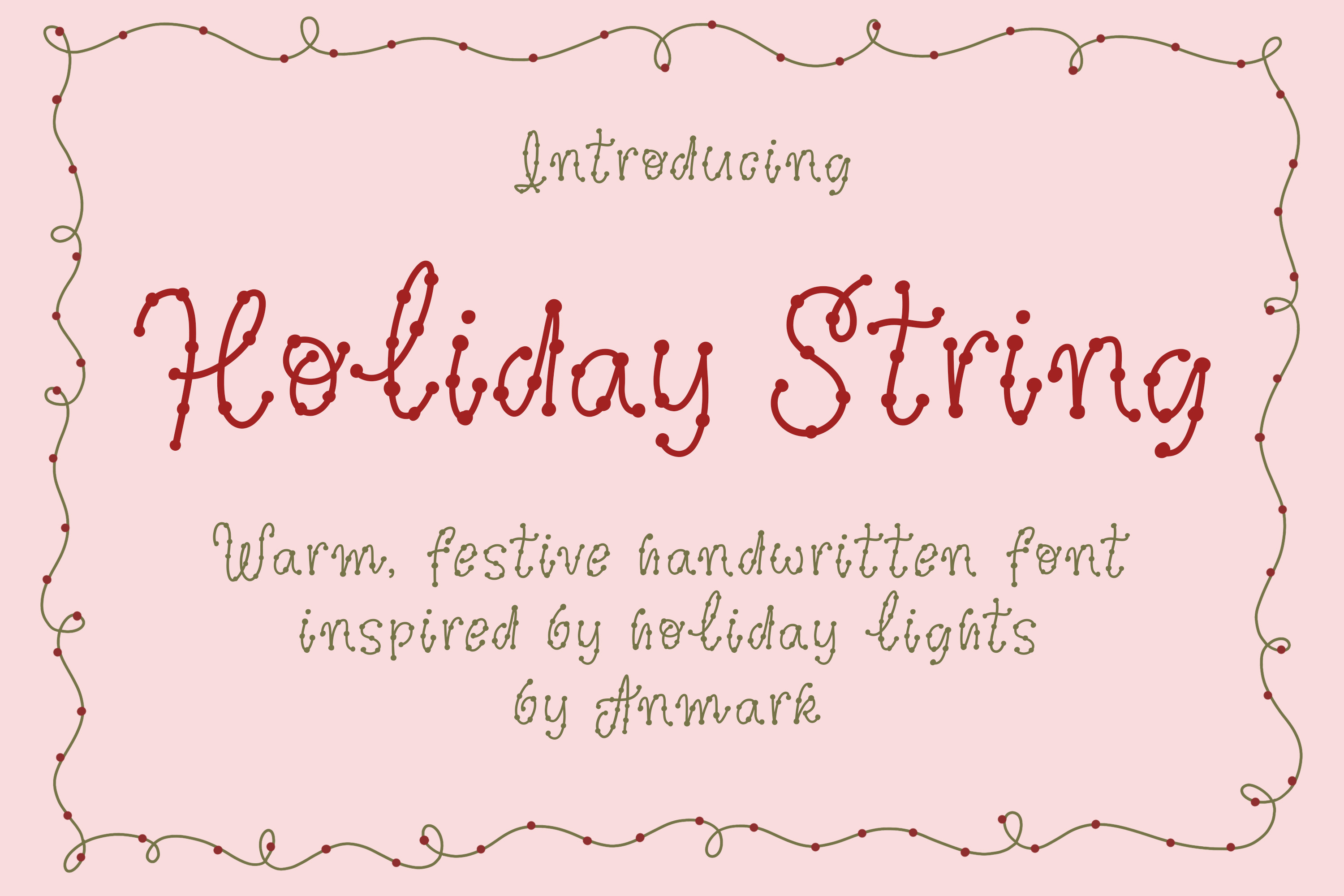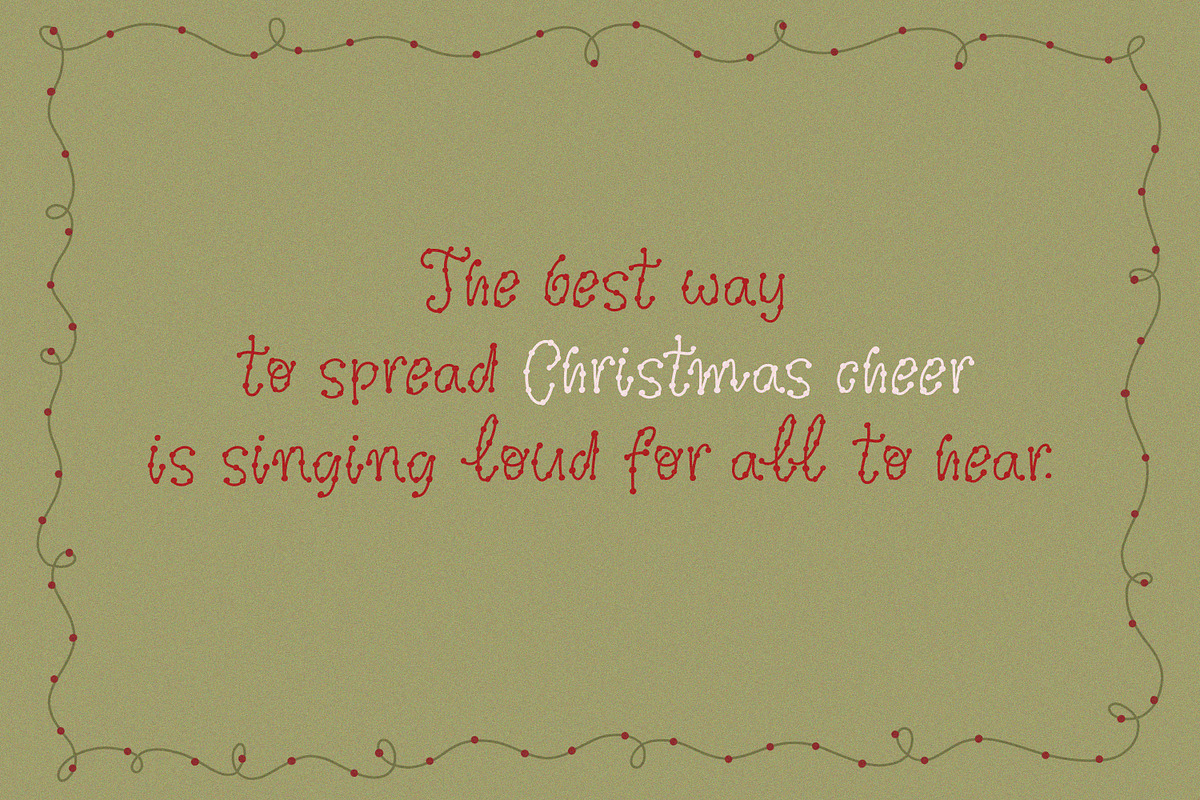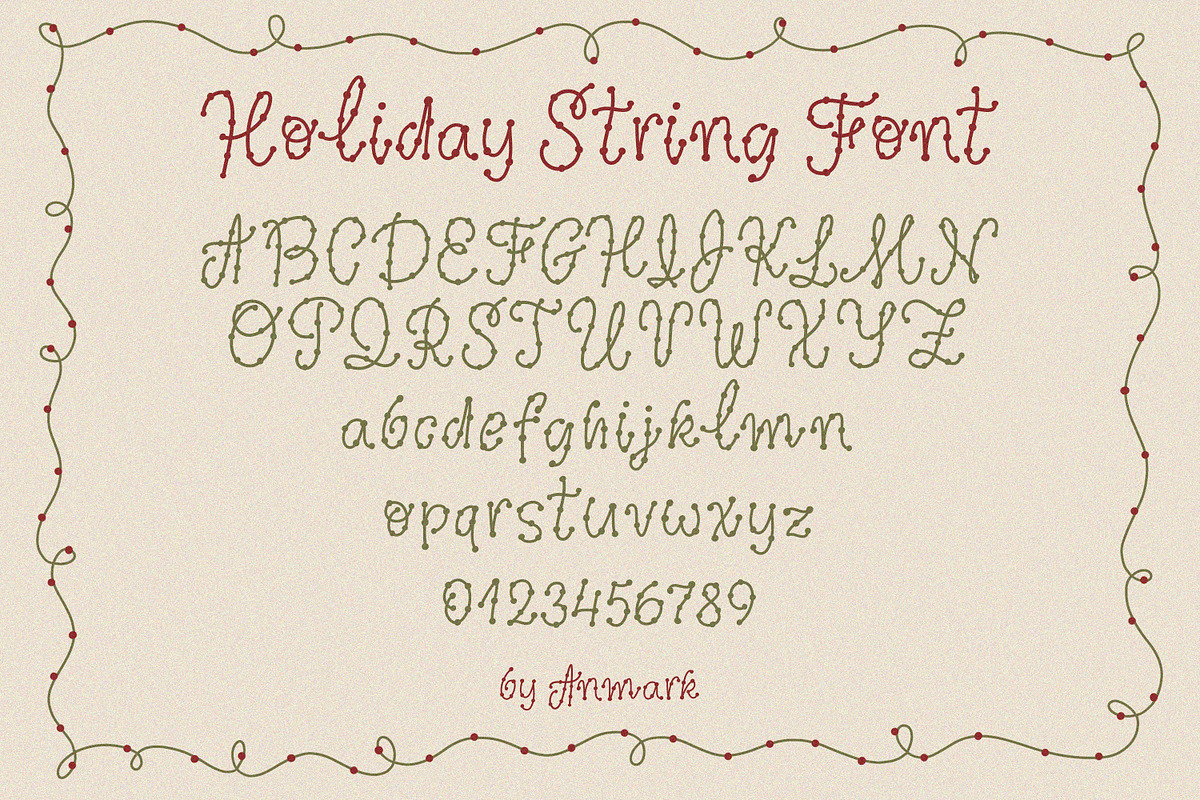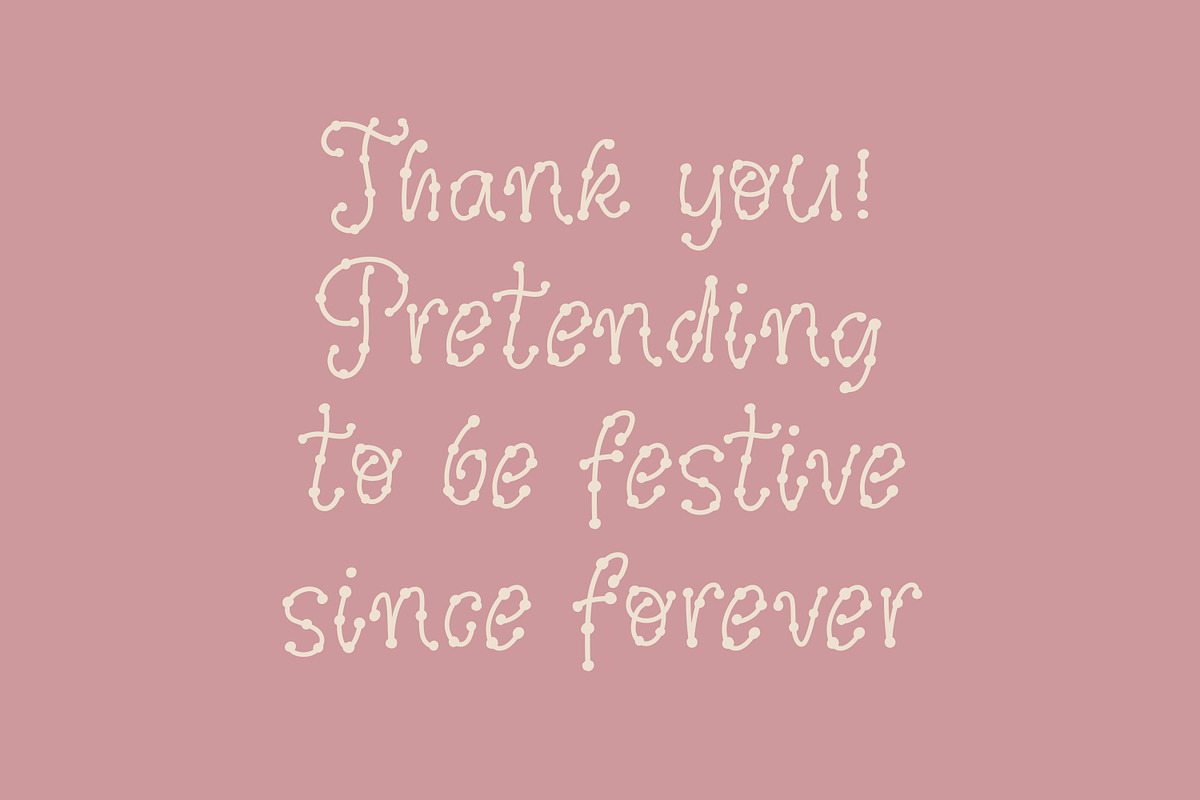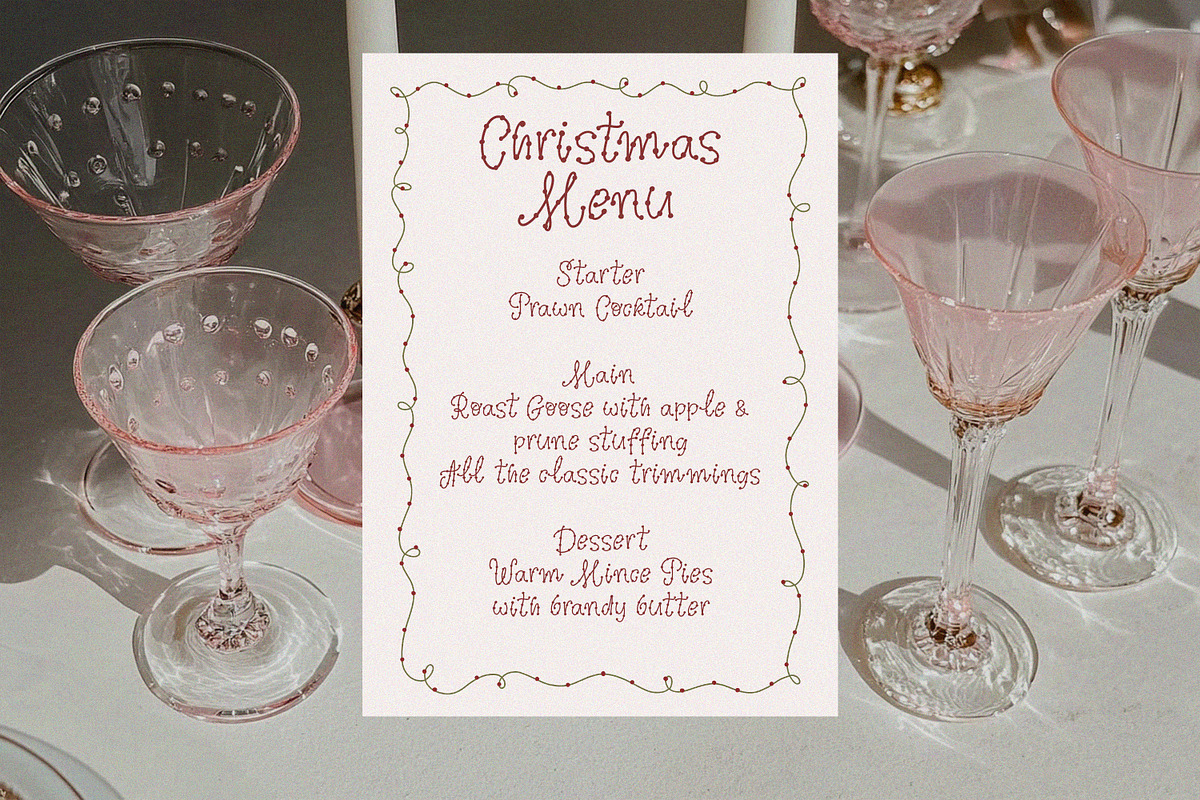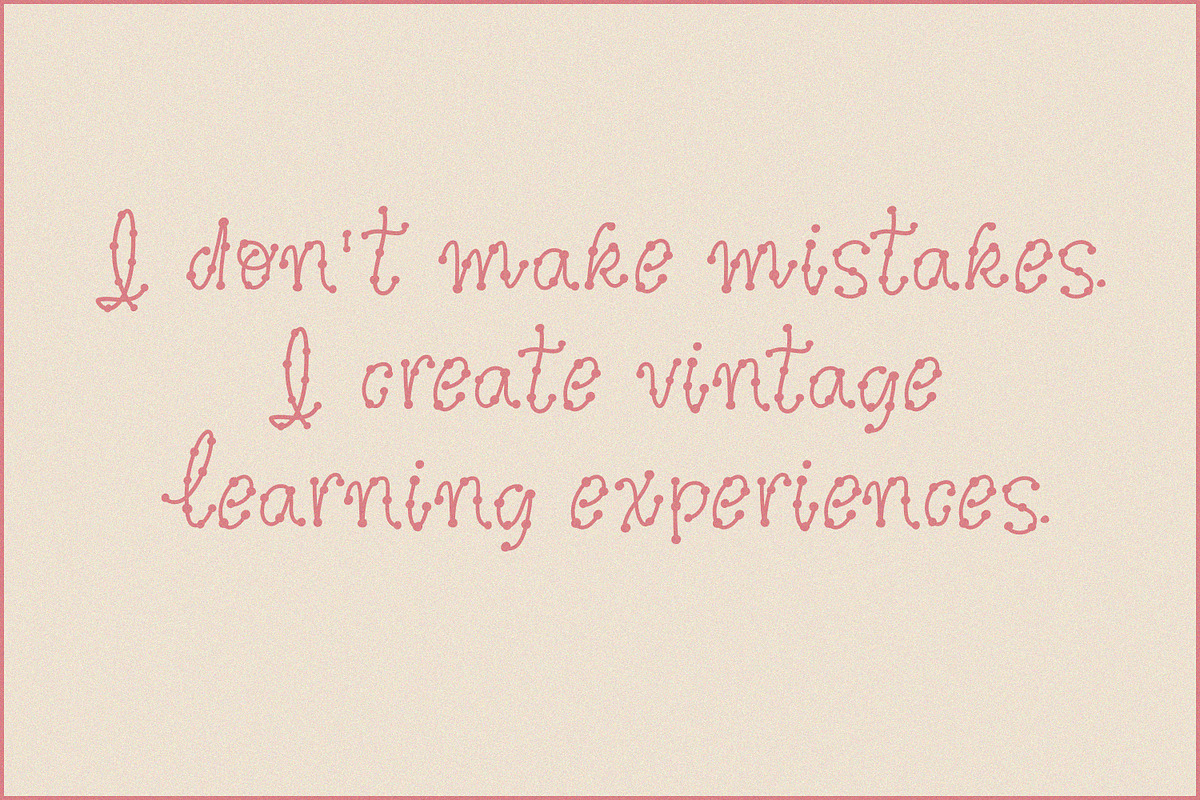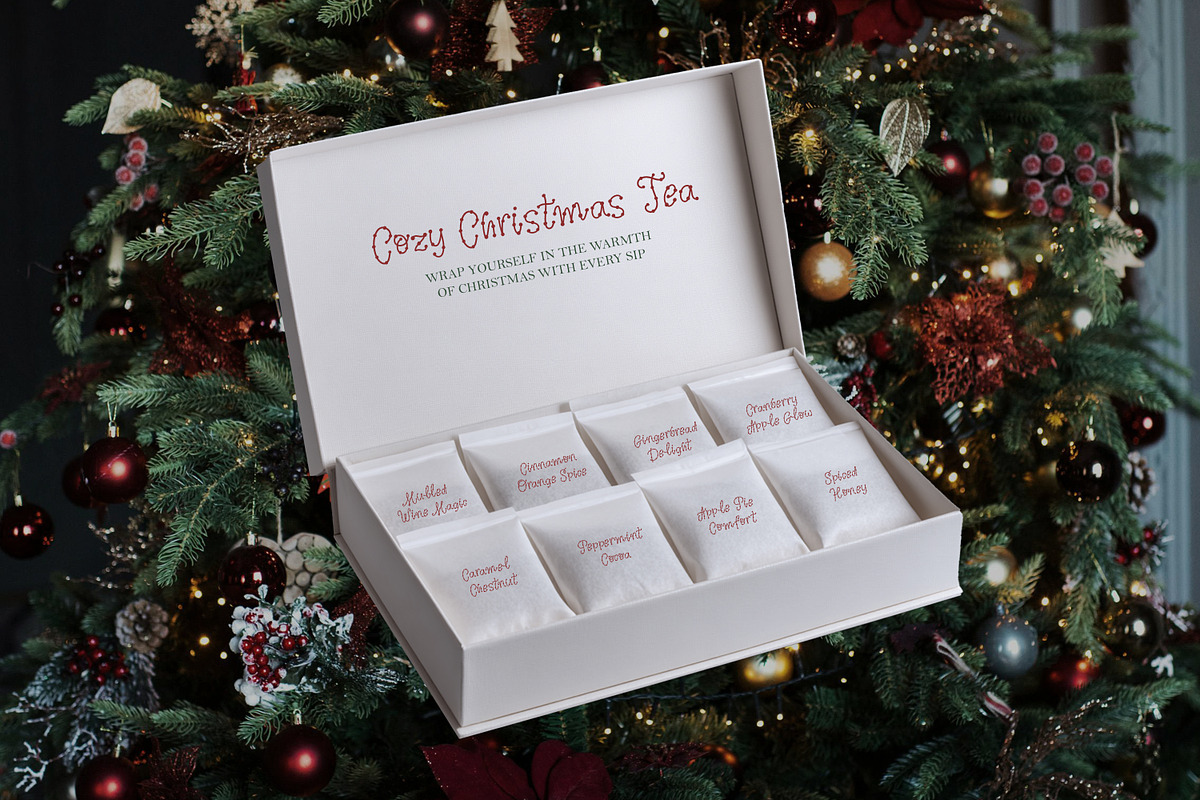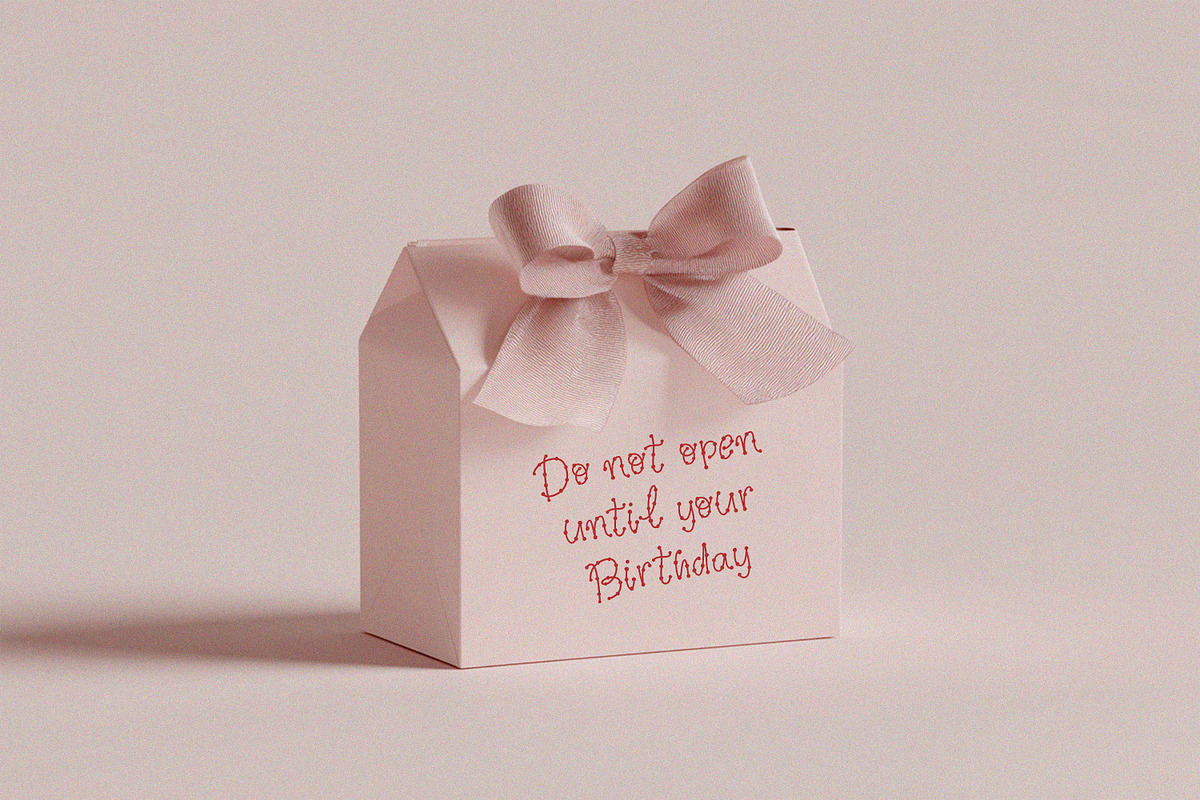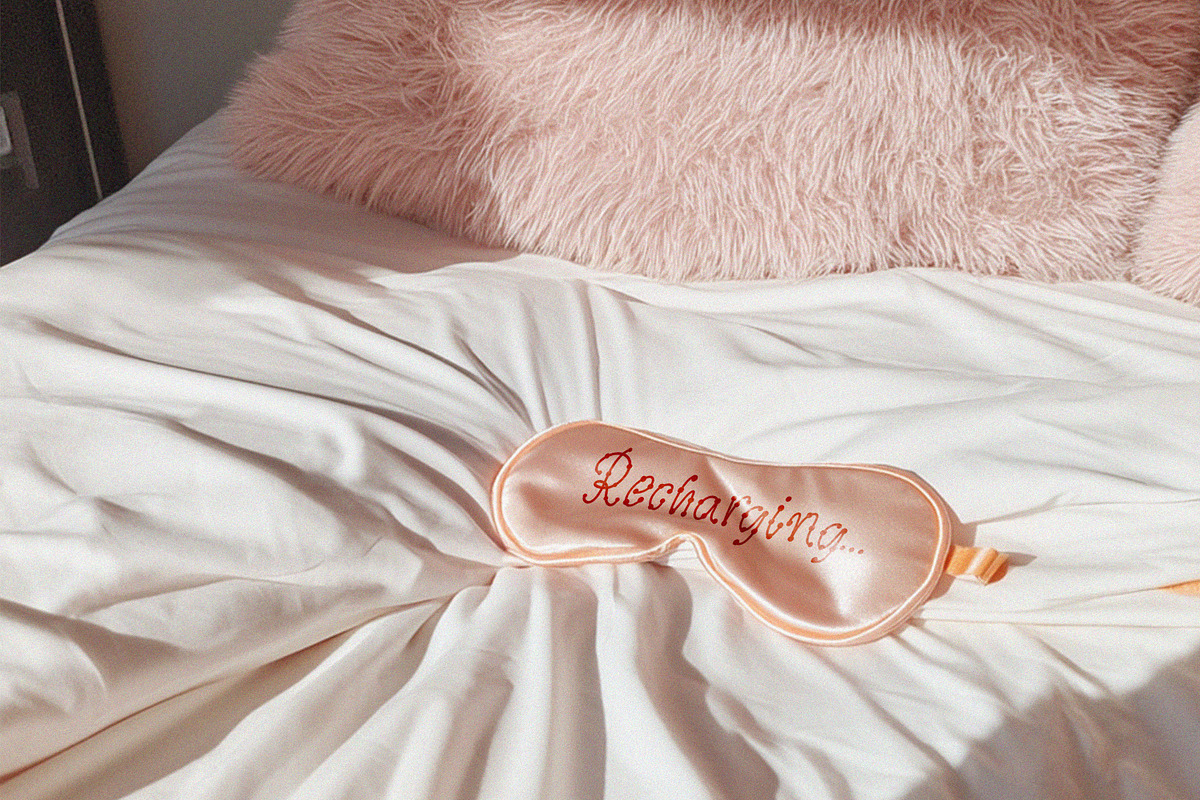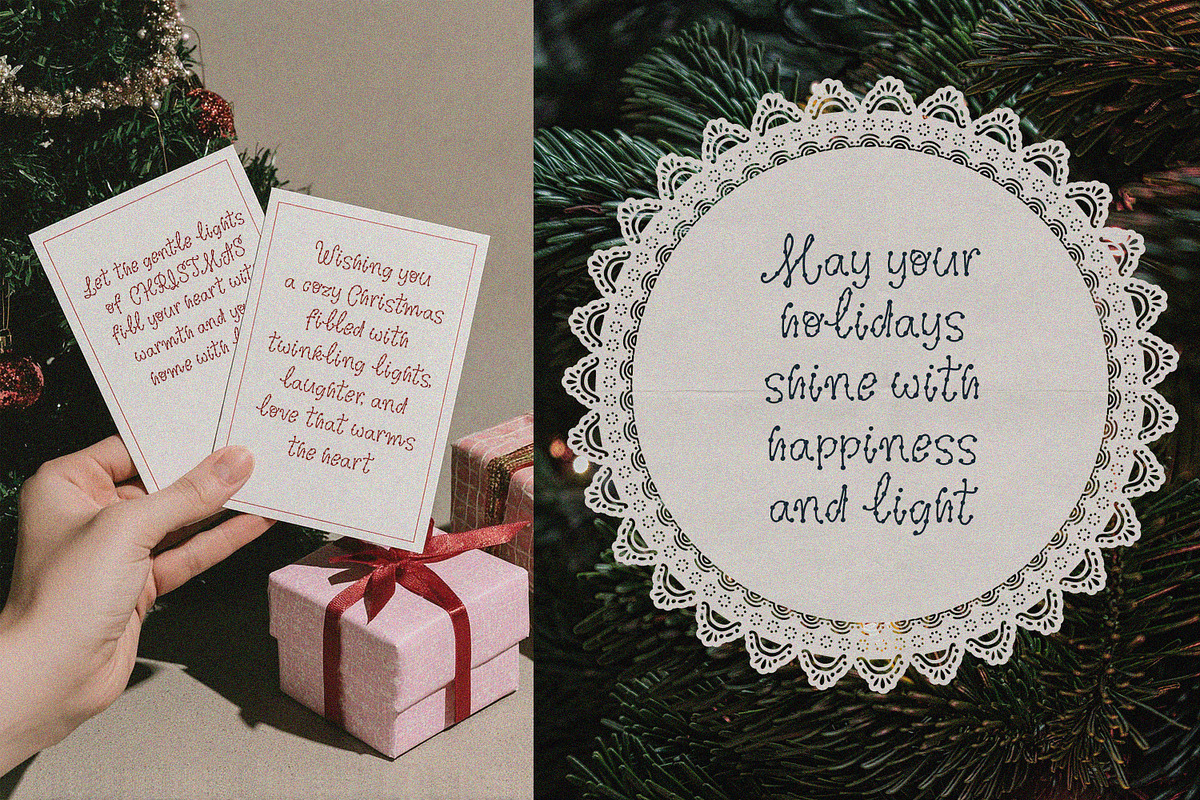
Holiday String - Vintage Dotted Font
Add a cozy, festive, and vintage touch to all your holiday designs with Holiday String, a hand-drawn dotted font full of charm and personality. Perfect for Christmas cards, New Year projects, gift tags, party invitations, and wedding stationery, this font brings warmth, nostalgia, and a joyful handcrafted feel to every creation. Its playful dots and vintage-inspired style make it ideal for seasonal crafts, DIY projects, packaging, and any design that needs a whimsical, heartwarming touch. From festive holiday projects to elegant winter weddings, Holiday String adds a delightful, cozy vibe that stands out and spreads cheer!